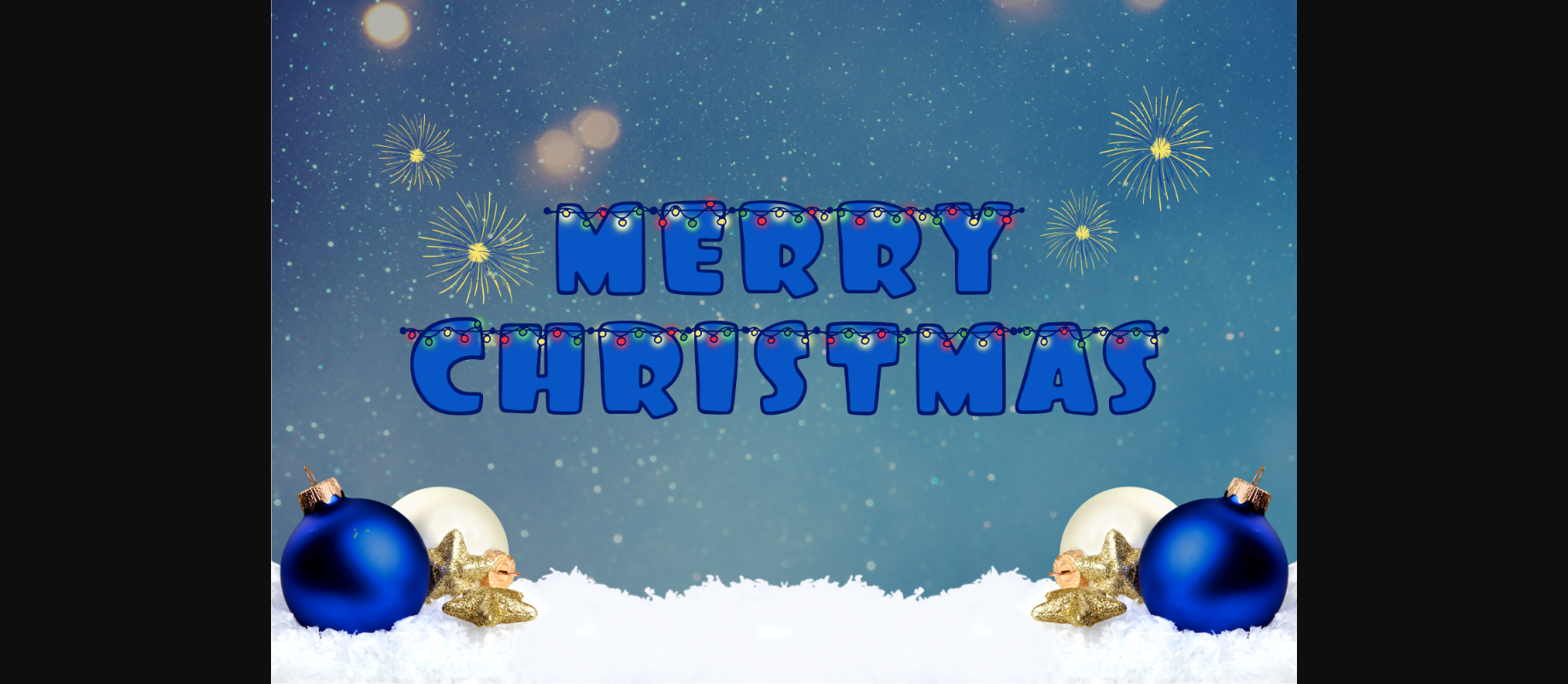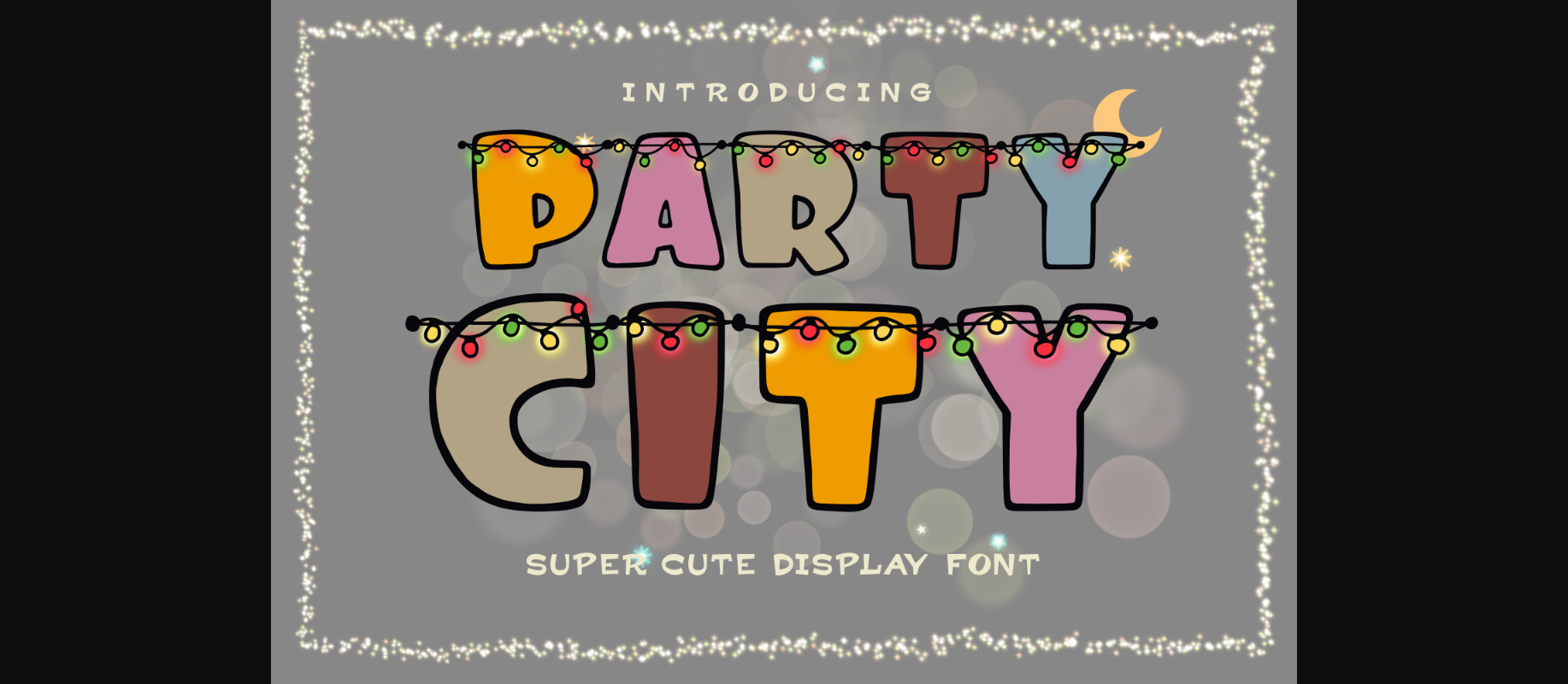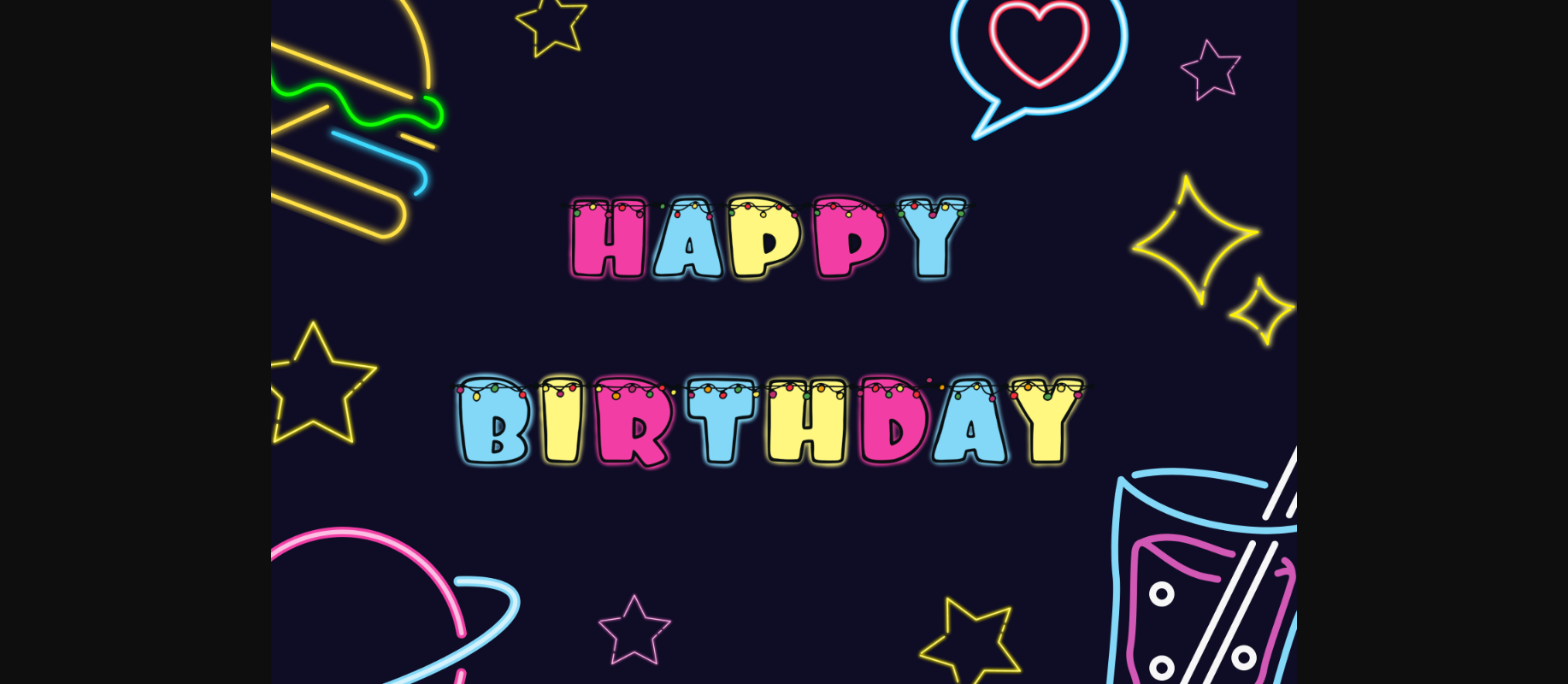
About Party City Font
Party City is a super cute decorative font with light bulbs in it. Its playful style will make your work look great and stand out. You can use it to create unique artworks for Christmas and every other holiday occasion.